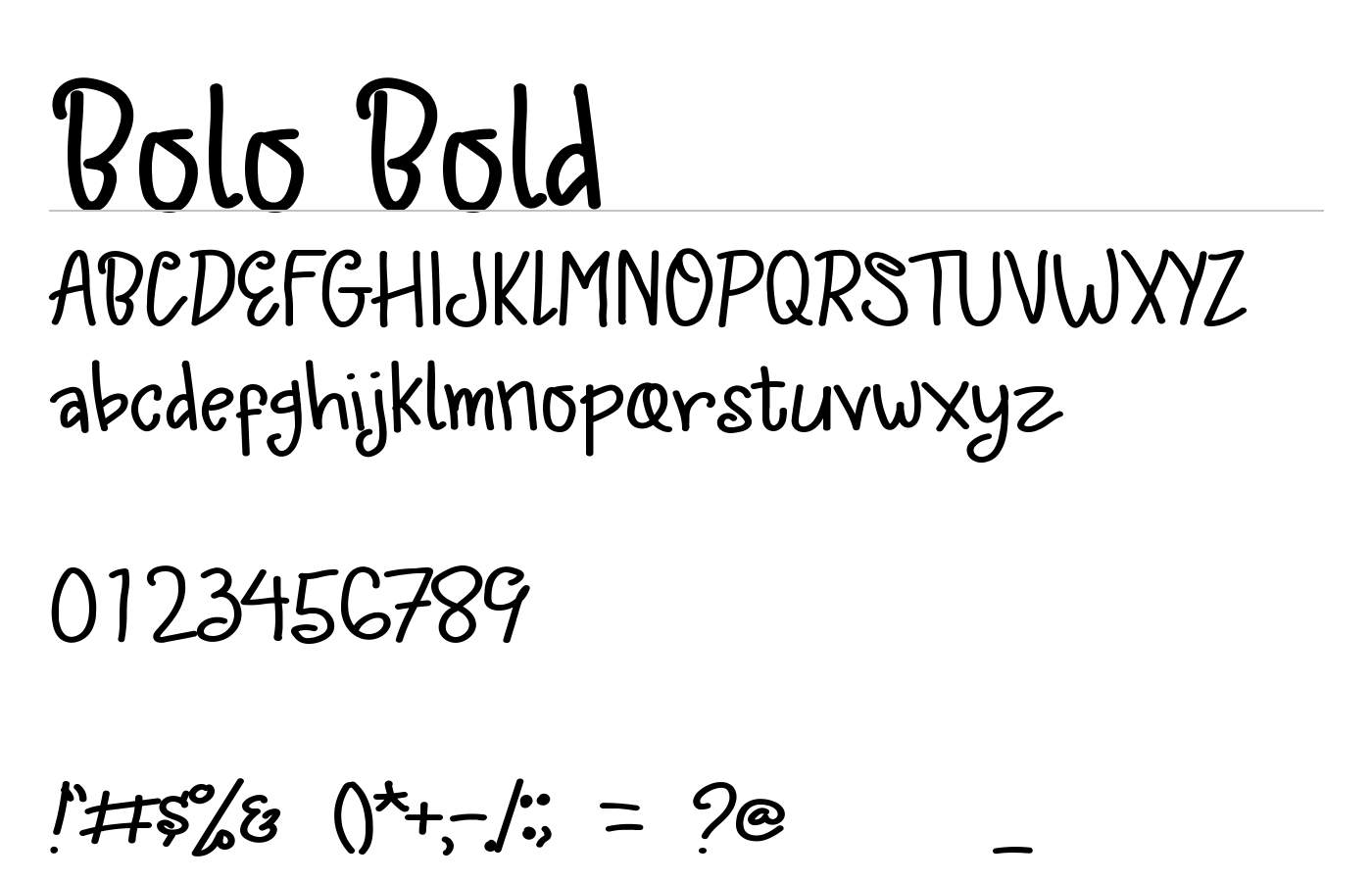
Bolo Bold is a playful, handwritten sans-serif font with a casual and friendly vibe. Its bold weight, irregular strokes, and slightly condensed letterforms give it a lively and approachable personality, making it perfect for informal branding, children’s materials, or creative projects that want to feel inviting and personal. This font works best for headlines and logos where a fun, human touch is desired.
Bolo Bold Font
About Bolo Bold Font
| Font family | Bolo Bold Font |
| Designer | (Syakaltype Studio). 2021. (Lutfi Fauzi) |
| Trademark | Syakaltype Studio |
| Font subfamily | Bold, Italic |